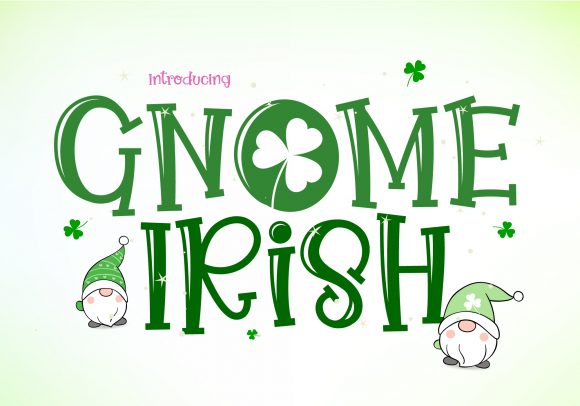
Introducing Gnome Irish, the font that will add a dash of whimsy to your designs! Created by BB Type Studios, this display font is anything but ordinary. With its playful and quirky style, Gnome Irish is the perfect choice for those who want to stand out from the crowd.
But this font isn't just all style and no substance. Gnome Irish has been carefully crafted to ensure that it is as functional as it is beautiful. Its clear and legible letters make it perfect for a wide range of applications, from advertising to branding, and everything in between.
So why should you choose Gnome Irish? For starters, it's incredibly versatile. Whether you're designing a children's book or a food blog, this font will add a touch of fun and whimsy to your creations. And because it's a display font, it's perfect for headlines and other attention-grabbing elements.
But Gnome Irish isn't just about being eye-catching. This font has been designed to evoke emotion and create a sense of playfulness. Whether you're designing a birthday card or a product label, Gnome Irish will help you connect with your audience on a deeper level.
And let's not forget about the technical side of things. Gnome Irish is a well-crafted font that is easy to use and customize. It comes in a range of weights, from light to bold, making it easy to find the perfect fit for your project. And because it's a display font, it's perfect for use in both print and digital formats.
In summary, Gnome Irish is a must-have font for anyone looking to add a touch of whimsy and playfulness to their designs. Created by BB Type Studios, this font is both beautiful and functional, making it the perfect choice for a wide range of applications. So why not add Gnome Irish to your fonts' library today?